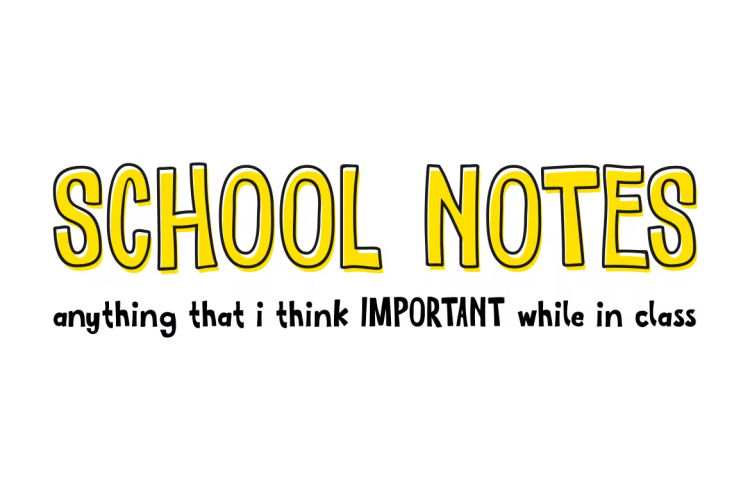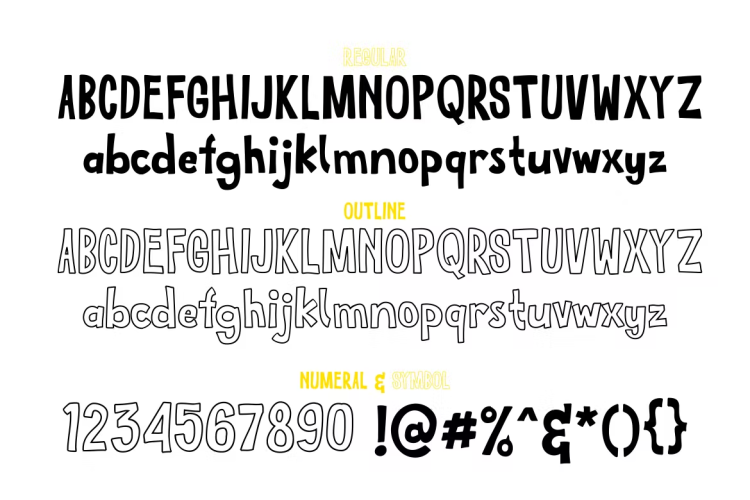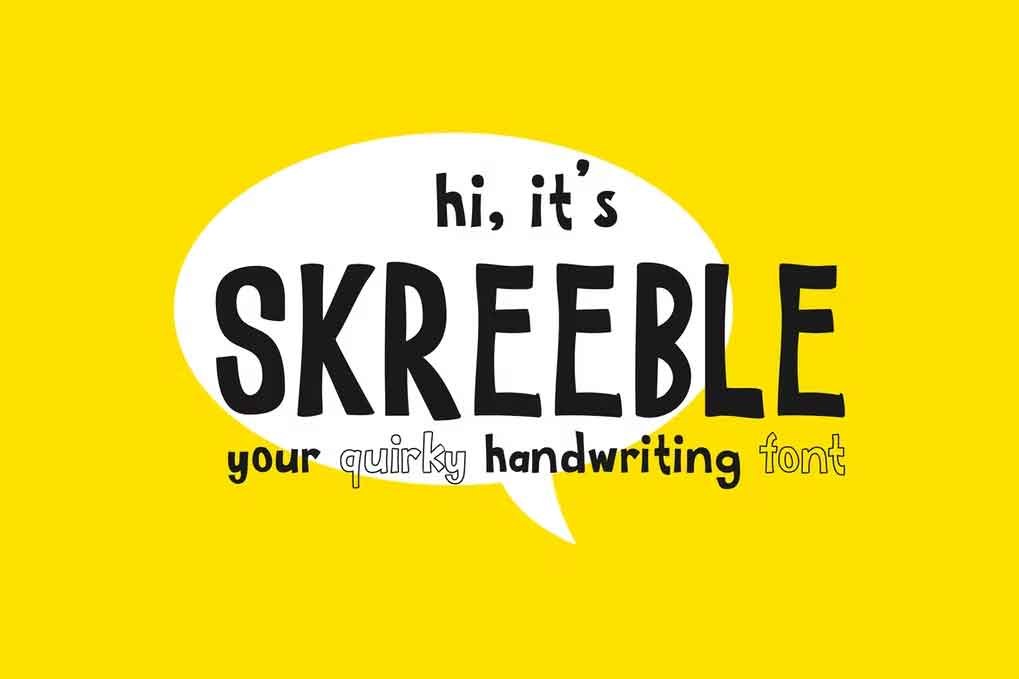
Skreeble Font
SKREEBLE a fun sans serif font with quirky shape, in SOLID and OUTLINE style.
Perfect to be used as a headline post, display font, and also as body text in children book, websites, and infographics.
Skreeble Font stays legible at small sizes, which makes it a strong choice for navigation, buttons and dashboards in web design and app interfaces.
Clean sans serifs like Skreeble Font are the default language of SaaS, fintech and product branding.
Skreeble Font is a Sans Serif Fonts typeface tagged Display, Playful, Professional, Readable. It works well for headlines, logos, posters, social media graphics and branding projects that need a distinctive sans serif fonts look.